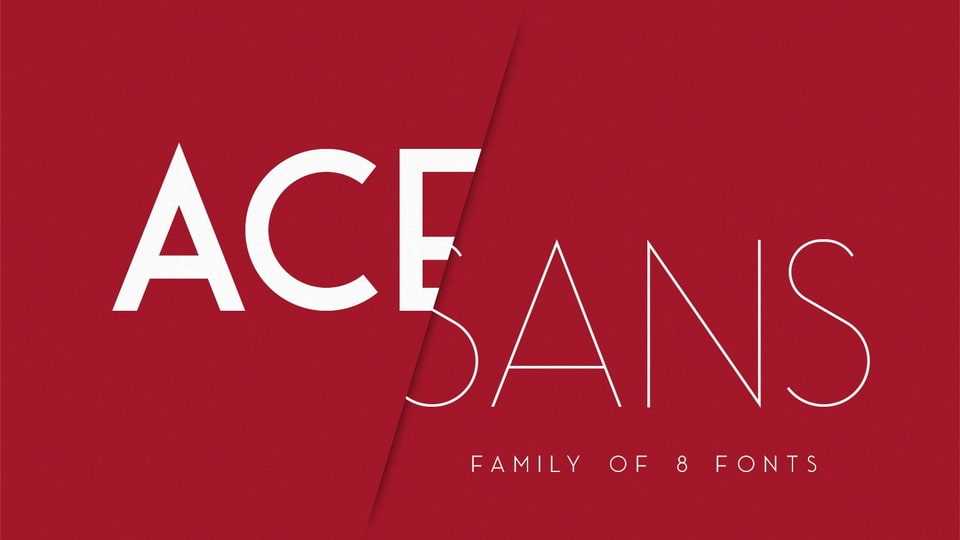
Download Ace Sans font, a modern and minimalist sans serif typeface with combination of minimal and geometric elements. Ace Sans is a irreproachable font to diversify your headlines, branding visual identity, poster, logo, magazines and etc.
Designer: Factory Type